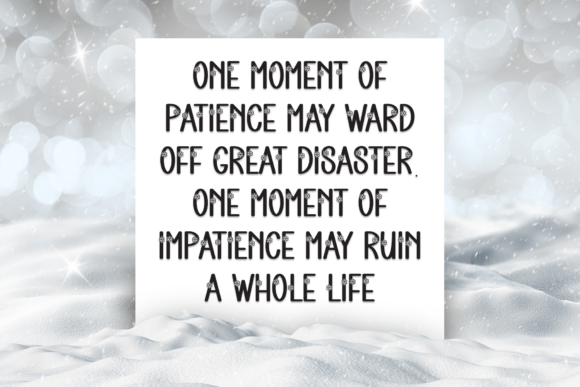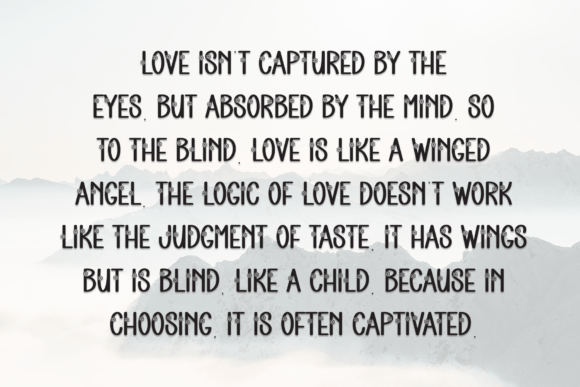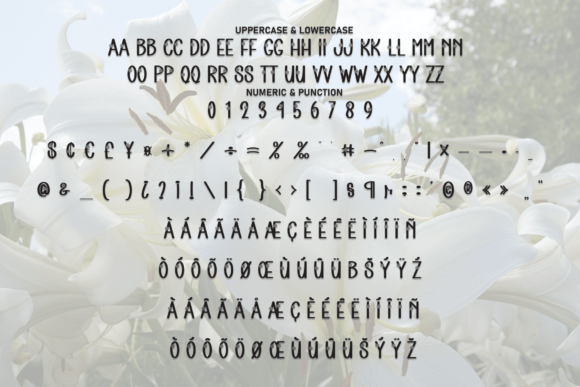
Introduction to Lily White Font
As a designer, have you ever found yourself staring at a blank page, eager to bring a creative project to life, yet struggling to find the perfect font to capture the essence of your vision? That’s where the Lily White Font comes in – a charming display font that exudes sweetness and friendliness, making it the perfect addition to any design endeavor.
Whether you’re crafting a whimsical wedding invitation or a heartfelt birthday card, the Lily White Font is sure to add a touch of magic to your work. Its high-quality design and transparent background make it an ideal choice for designers looking to elevate their creative projects. And the best part? This delightful font is available for free download, making it a valuable resource for any design enthusiast.
With its spirited and playful vibe, the Lily White Font is a must-have for designers seeking to infuse a dash of whimsy into their work. Its versatility and charm make it a valuable addition to any design collection, and its free download makes it accessible to designers of all levels.
Key Features of Lily White Font
- High-quality, elegant design perfect for creative projects and artistic expressions.
Honest Review: Lily White Font
As a designer, I’m always on the lookout for high-quality fonts that can elevate my creative projects. I recently had the chance to try out the Lily White Font, and I’m excited to share my thoughts with you.
- Beautiful, elegant design: The Lily White Font is a stunning example of modern typography. Its clean lines and delicate curves make it perfect for a variety of design projects, from wedding invitations to luxury branding.
- Transparent background: One of the things I appreciate most about this font is its transparent background. This makes it easy to use on any background, without worrying about clashing colors.
- Only available in a limited range of weights: While the Lily White Font is beautiful, it’s only available in a limited range of weights, which may not be suitable for all design projects.
- No italic or bold versions: Unfortunately, the font doesn’t come with italic or bold versions, which may limit its versatility.
Overall, I think the Lily White Font is a great addition to any designer’s toolkit. While it has some limitations, its beautiful design and transparent background make it a valuable resource for creative projects. If you’re looking for a high-quality font to elevate your designs, I’d definitely recommend giving the Lily White Font a try.
Tips for Getting the Most Out of Lily White Font
The Lily White Font is ideal for various design projects, including wedding invitations, business cards, and social media graphics. Its transparent background makes it perfect for overlaying on images or videos. Use it to create a unique and eye-catching design that stands out from the crowd.